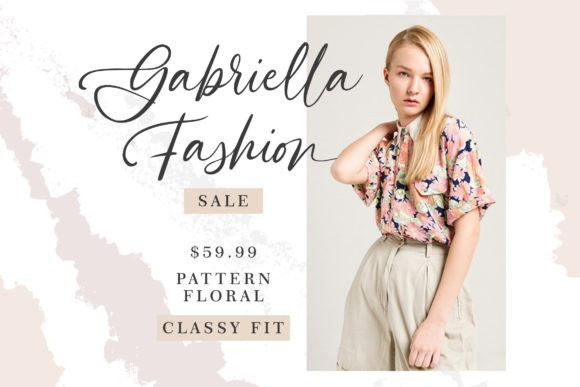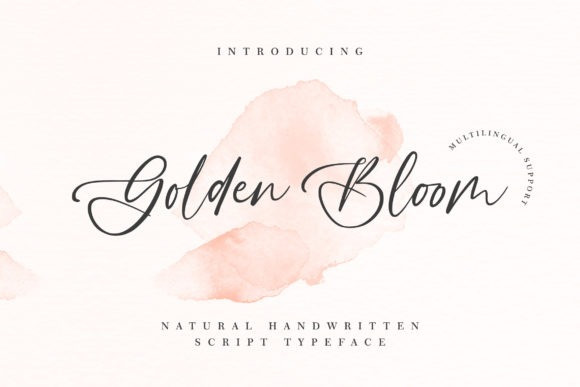
Golden Bloom Font
Golden Bloom Script Font is a chic, refined script font that emanates sophistication and elegance. Its stylish alternates and ligatures make this font the perfect match for any project.